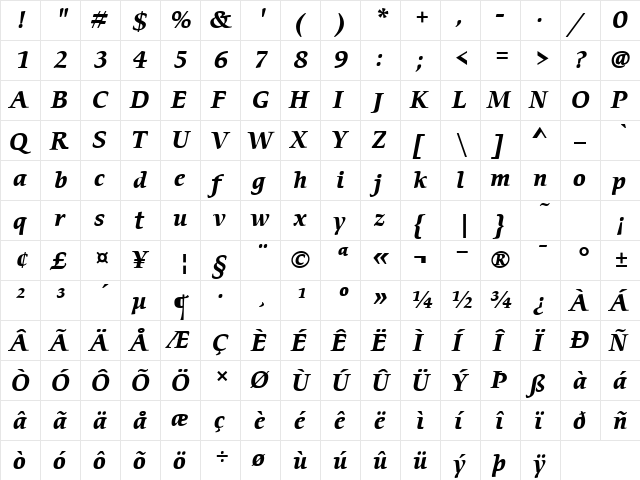
ITCCerigo BoldItalic Font Preview
Design Context for ITCCerigo Typeface
ITCCerigo takes a measured approach to typography — its balanced proportions and neutral character make it a reliable workhorse for both digital and print work. The slanted form adds forward momentum and visual energy. The heavy weight commands attention and anchors typographic hierarchies.